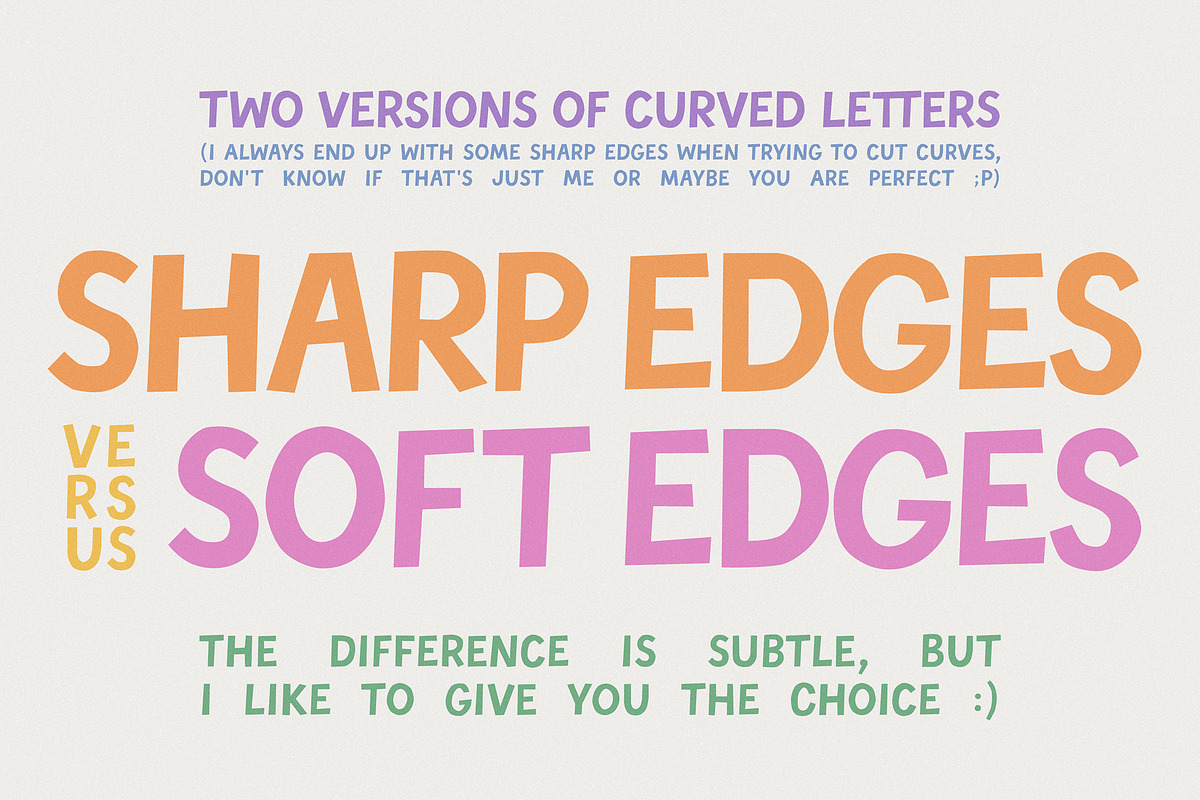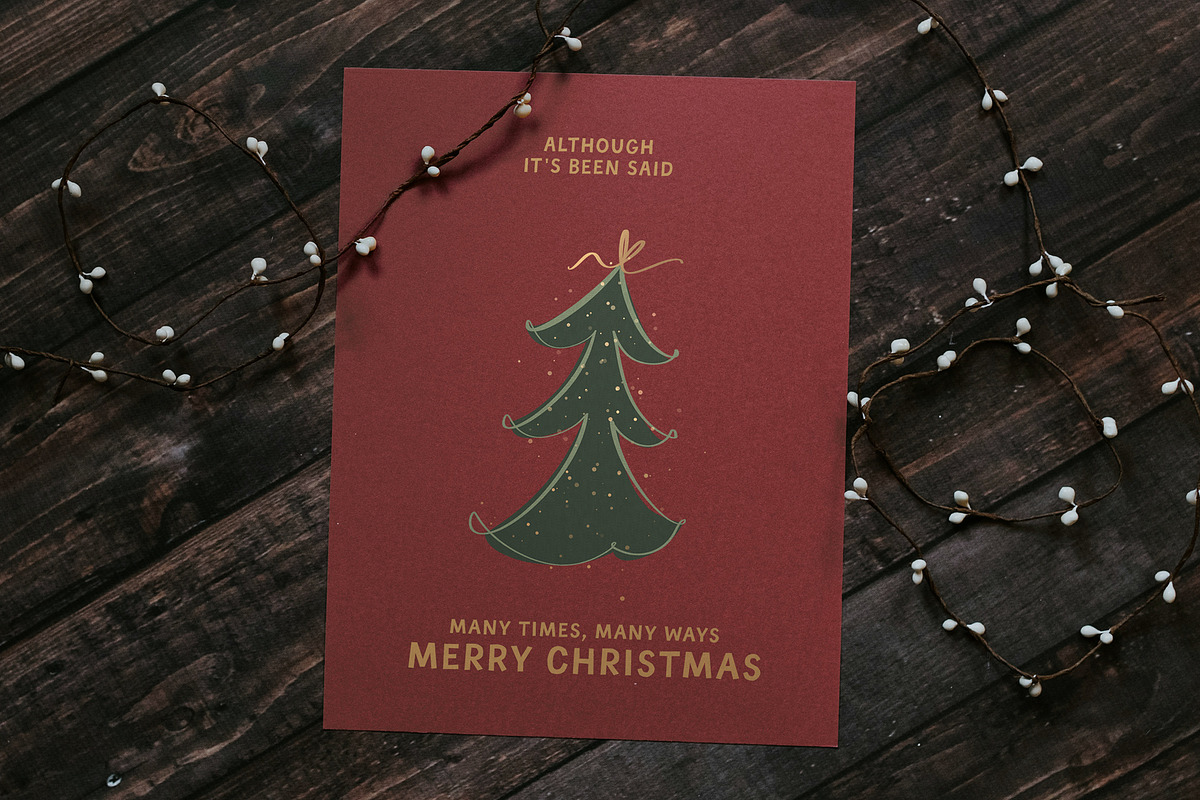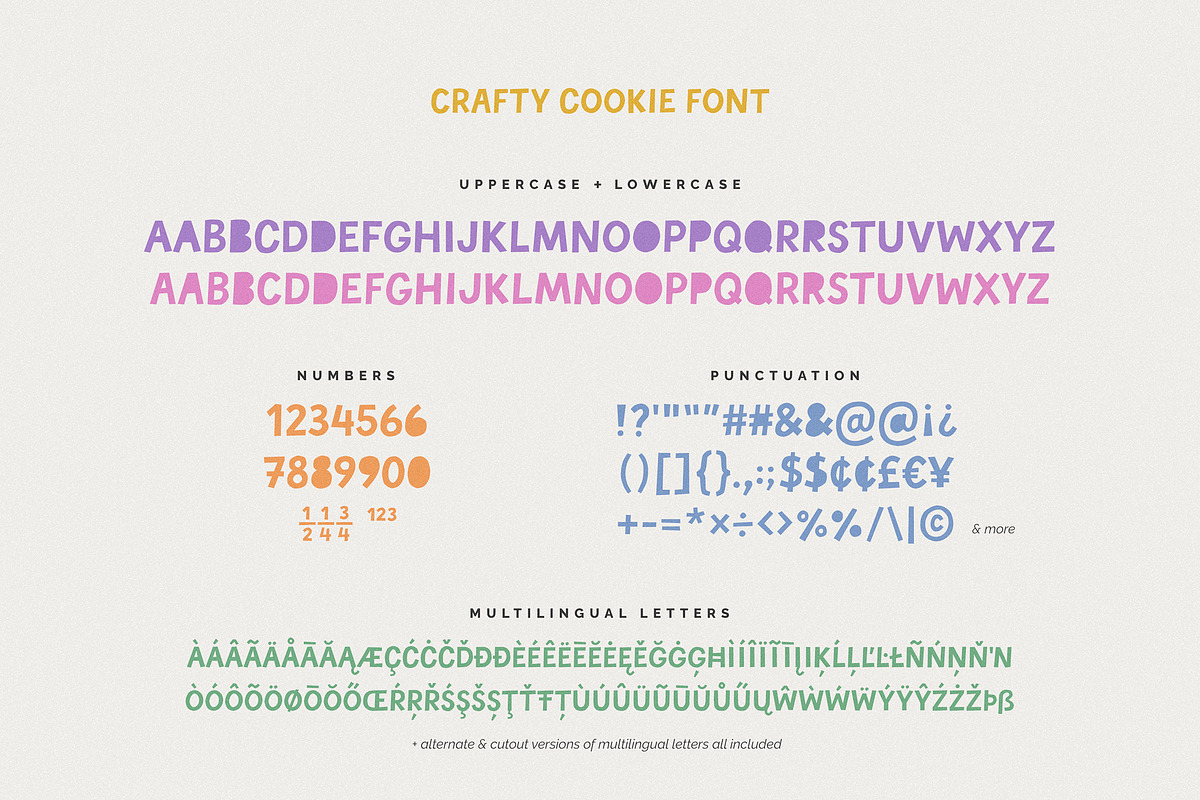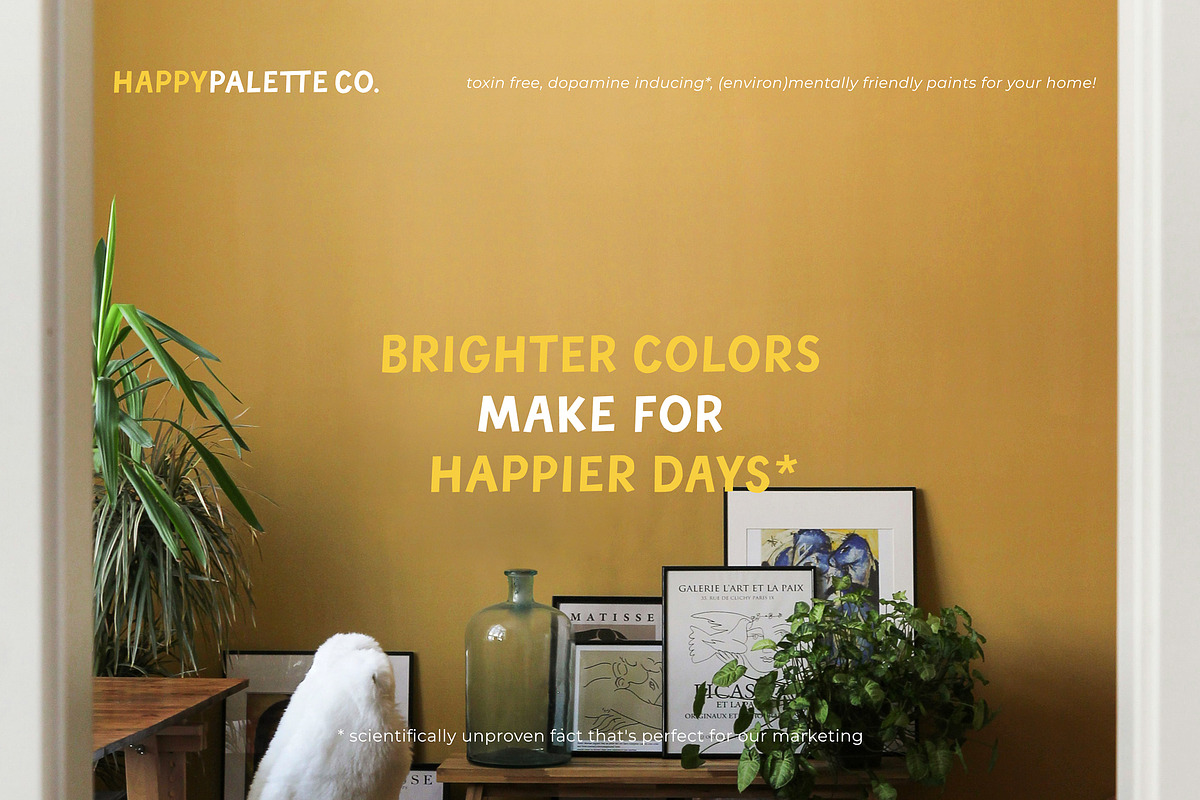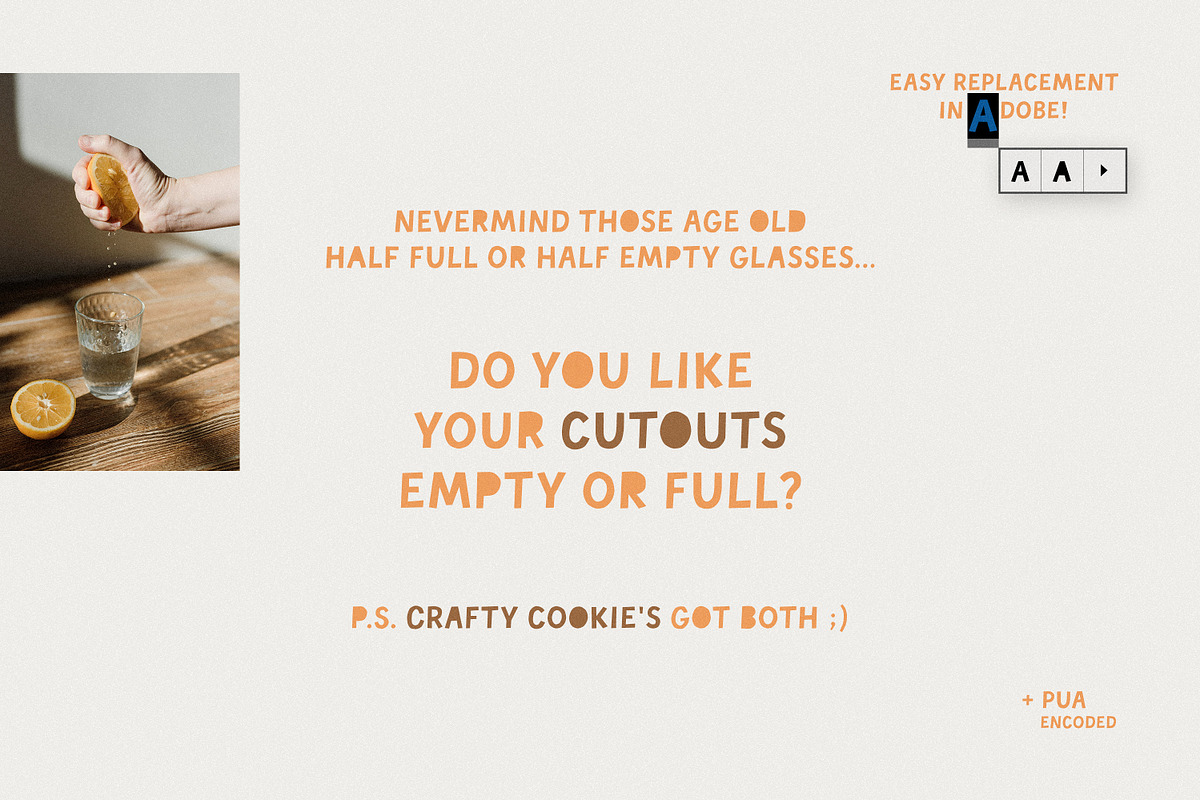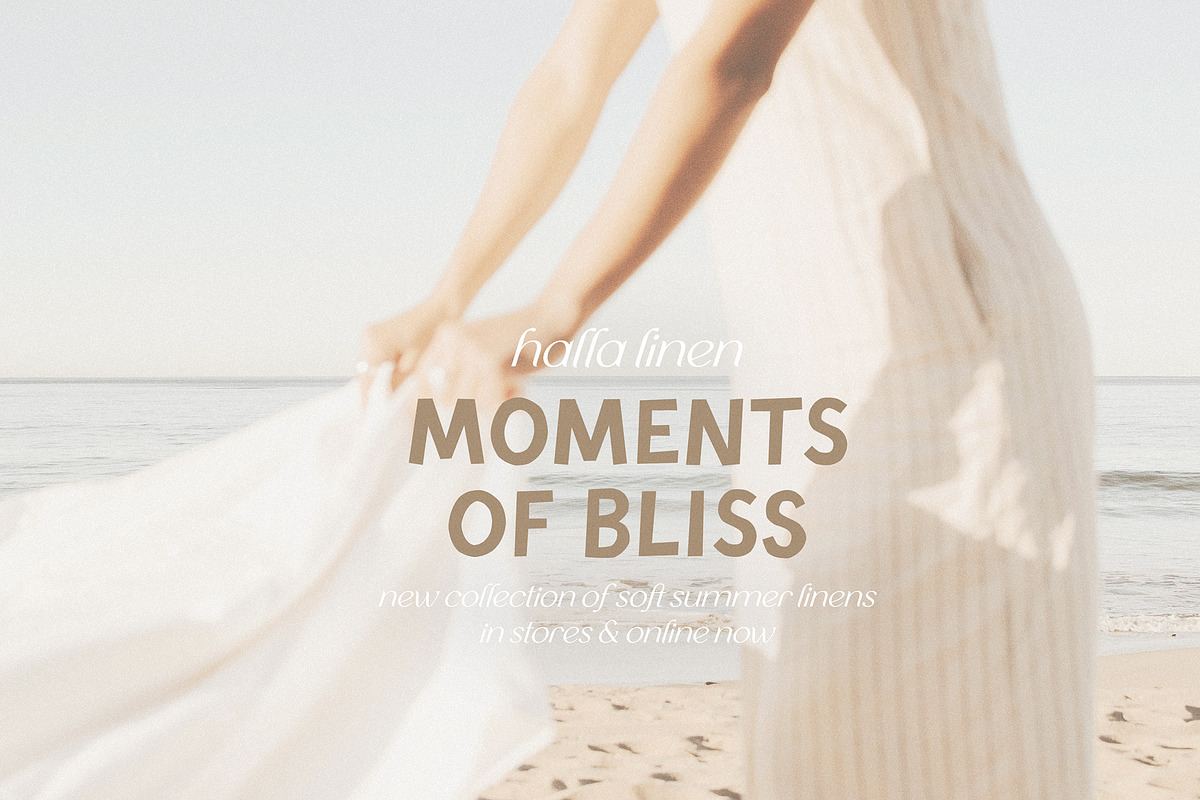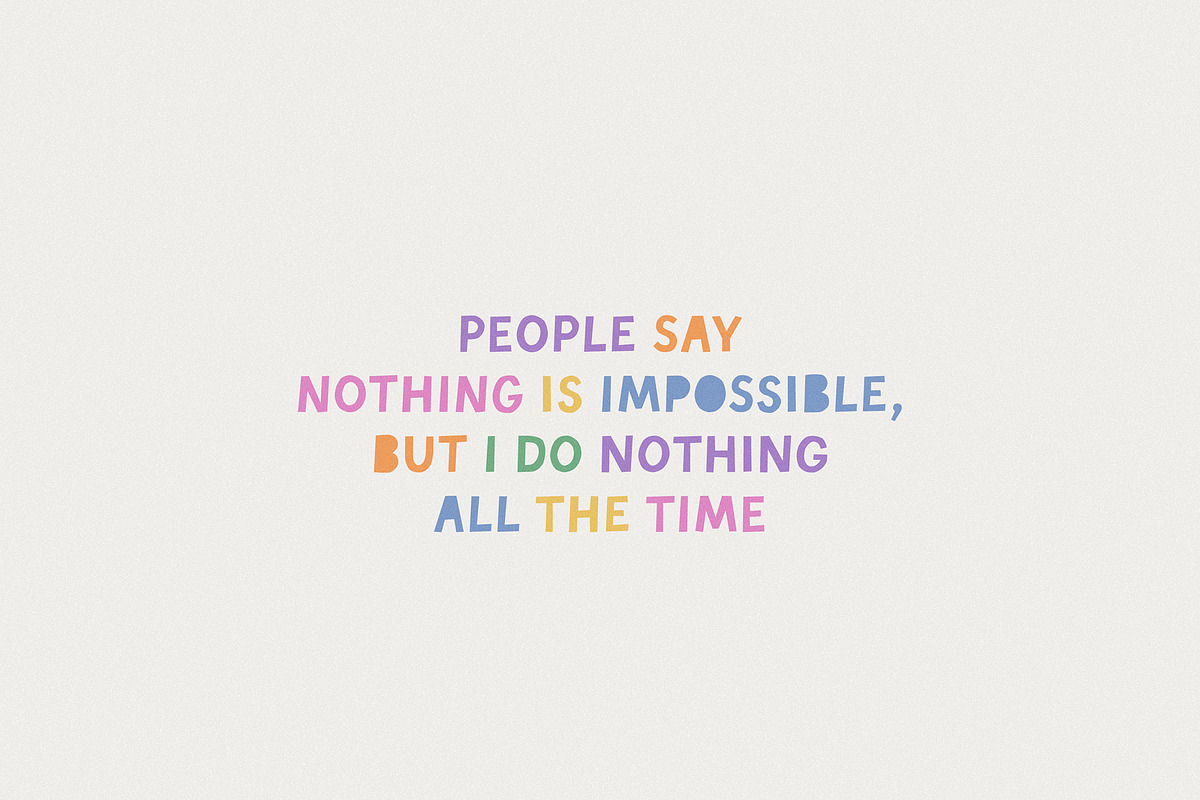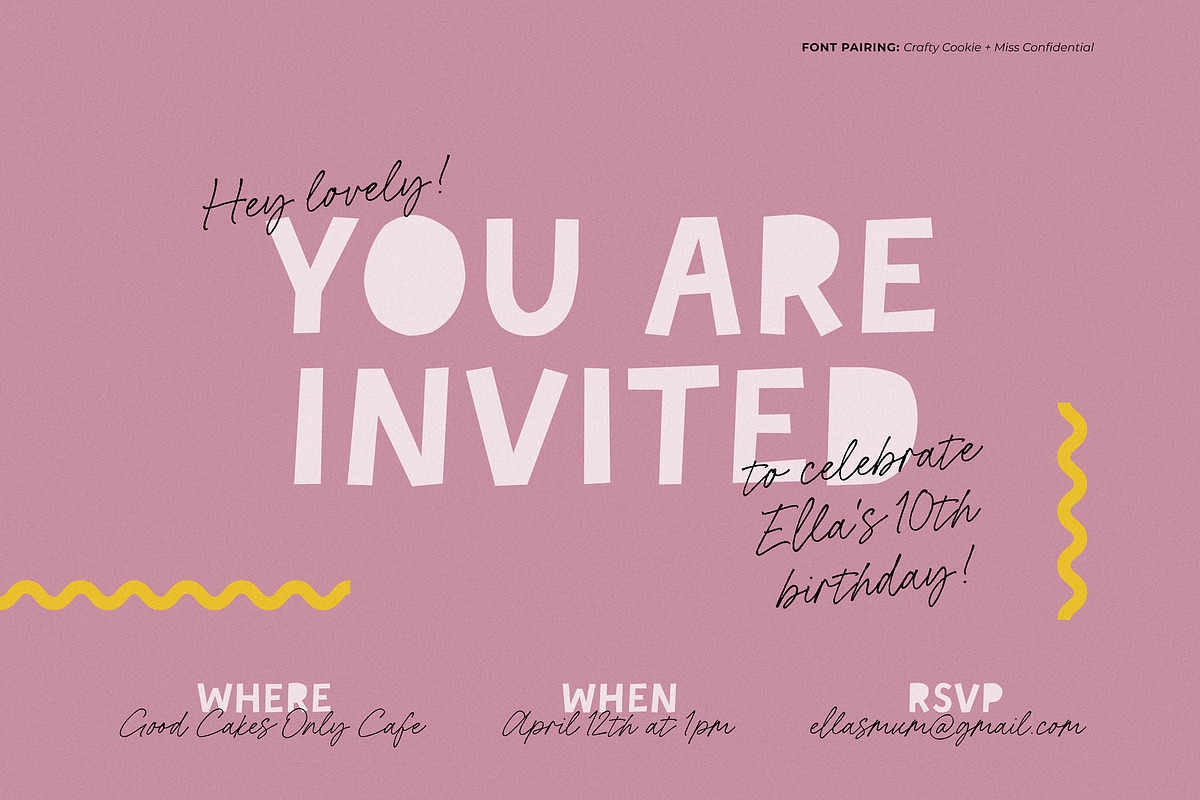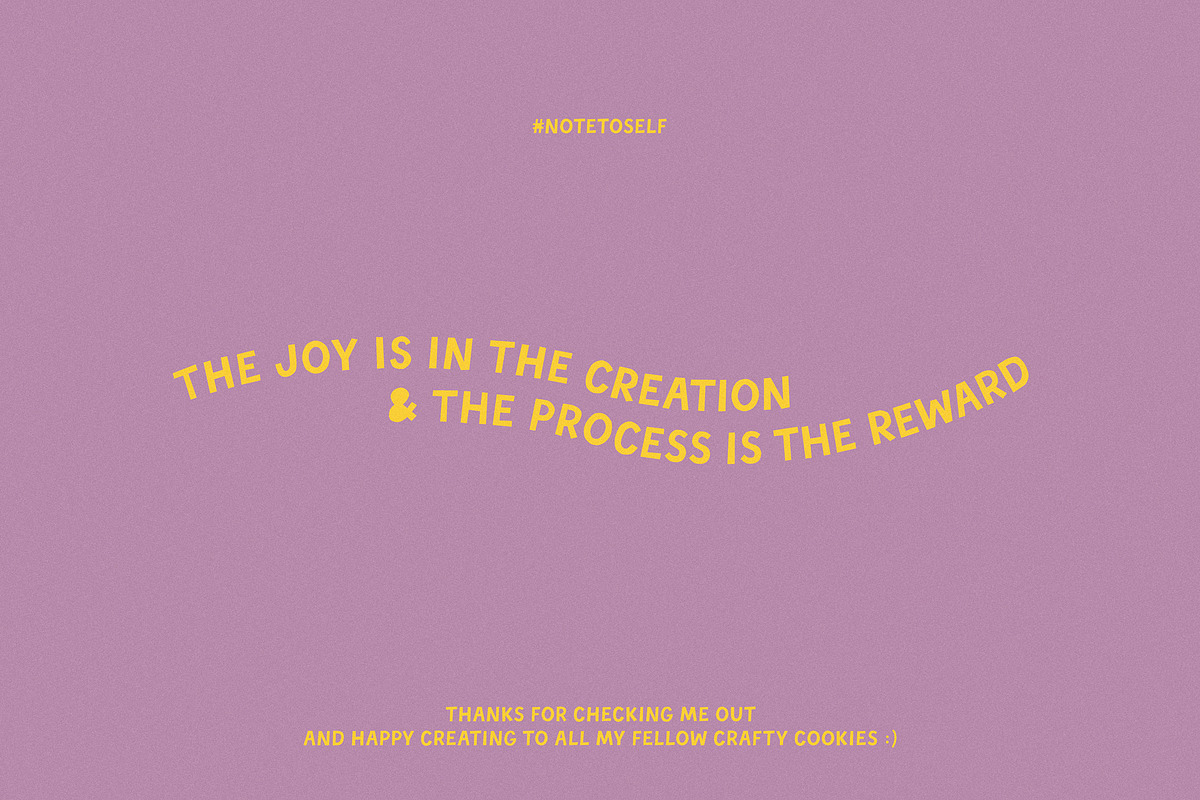
Crafty Cookie handmade cutout font
Crafty Cookie is a fun, uppercase only, cutout style font with perfectly imperfect scissor cut sharp edges. Born when I needed a simple font with a hand-crafted feel to go with a drawing (the Christmas card shown here), it has turned out ideal for so many of my crafty projects ever since - I'm sure it will for yours too! :)
There's two sets of uppercase letters for authentic handmade variation and if you want your cutouts filled, I have those variations included too - also PUA encoded in case you're using a program that doesn't support OpenType features, e.g. Canva. And if you prefer not having sharp corners, especially in larger sizes, there is a smoothed out version without the sharp edges but still retaining the same blocky feel.
Multilingual support: English, French, German, Italian, Polish, Spanish, Turkish, Albanian, Catalan, Czech, Croatian, Danish, Dutch, Estonian, Finnish, Hungarian, Icelandic, Latvian, Lithuanian, Maltese, Norwegian, Portuguese, Romanian, Slovak, Slovenian, Swedish